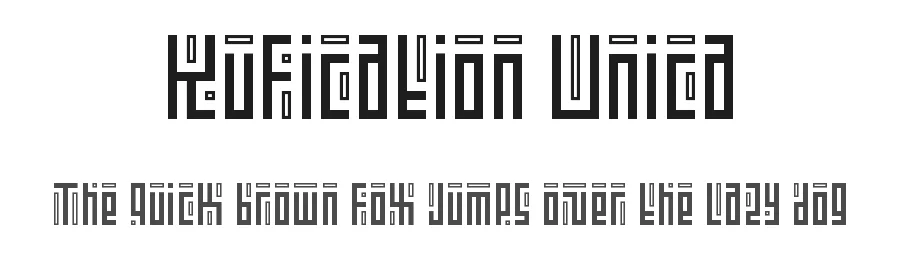
About Kufication Font
Kufication Font is a decorative font that shines as a display or heading face. Pair it with a clean sans-serif or serif font for body text β the contrast creates a clear hierarchy while the two styles stay balanced and easy to read.